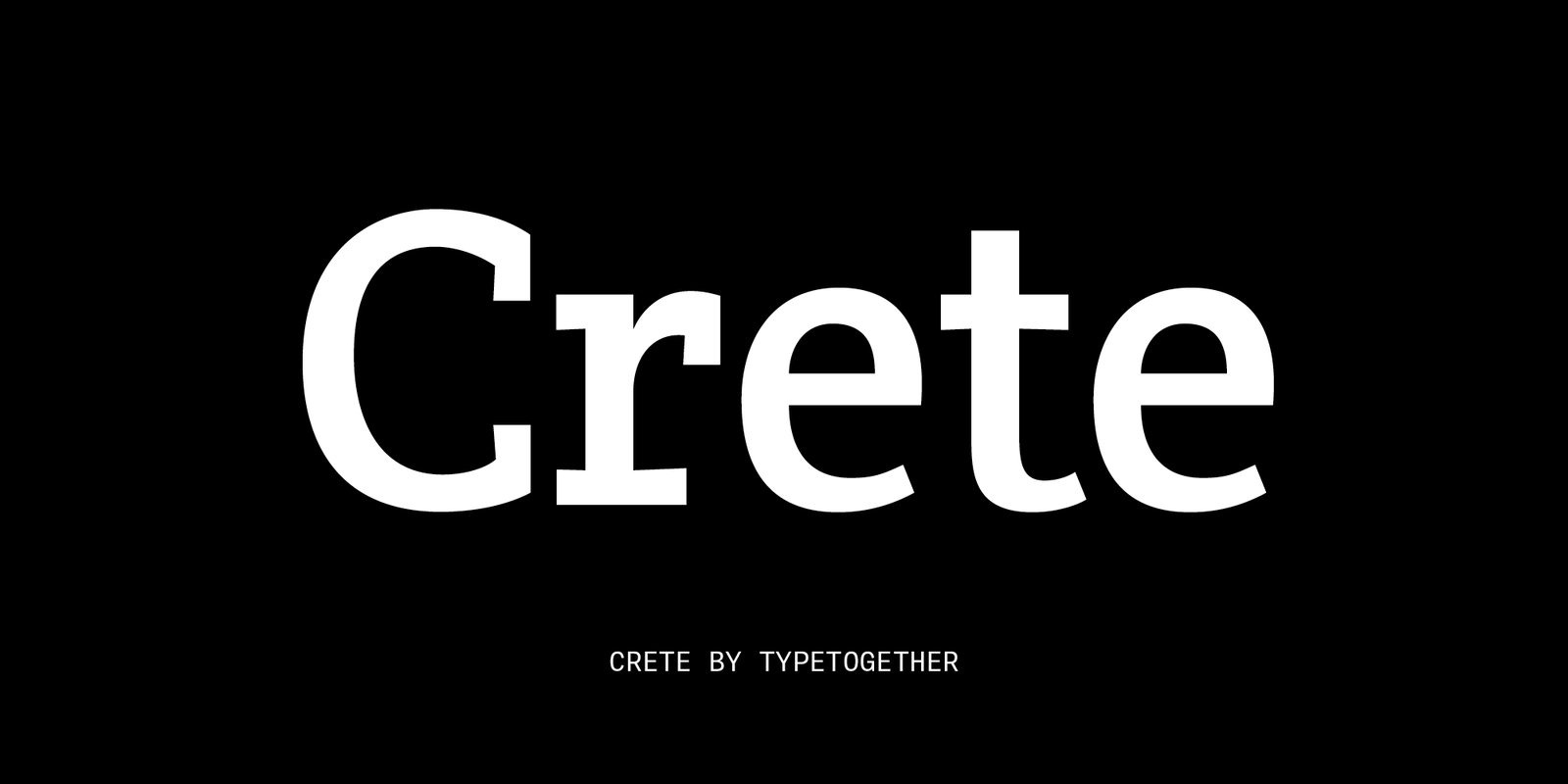
Crete Font Family
Crete Font Family is a clean and thoughtfully built typeface that works seamlessly for both professional branding and everyday creative uses. A typeface originally inspired by a wall lettering in a small chapel on Crete, Greece. Despite its experimental character it works nicely in a text environment. Crete is perfect for display use where a feminine and elegant touch is desired. The unusual serifs and terminals add to the graceful appearance in the Thin and provide a more robust feel in the Thick. Both weights are metrically interchangeable, so text will not reflow when mixed. The accompanying Italics have several different lettershapes and therefore have, in some cases, their own widths. However, they sit comfortably next to the uprights. The style names refer to the change in serif weight instead of increasing vertical stem widths. Crete features our Basic Extended character set including four sets of numerals, ligatures. fractions, superior/inferior numerals and language support for over 40 languages that use the Latin script. Crete was selected as winner of the Granshan competition 2008 in the display type category.
Designer: Veronika Burian